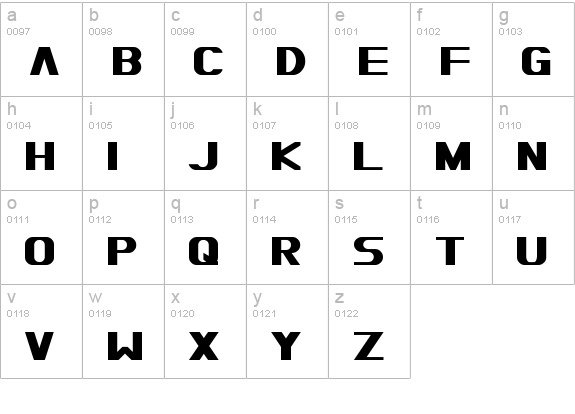
Moiser heavy Font Details
Moiser heavy is a heavy, high-impact variant in the Moiser typeface family \xE2\x80\x94 well suited to high-impact headlines, posters, and display advertising.
Moiser heavy font is a bold and powerful typeface that demands attention. With its thick strokes and sturdy appearance, this font exudes confidence and strength. Perfect for headlines, titles, and branding materials, Moiser heavy font adds a touch of boldness to any design. What makes Moiser heavy font even more appealing is that it is available for free! That's right, this incredible font can be freely downloaded at FontsMarket.com. Whether you're a professional designer looking for a reliable typeface or an amateur enthusiast experimenting with typography, Moiser heavy font is the ideal choice. The versatility of Moiser heavy font allows it to be used in a variety of design projects. From posters to logos, from website headers to packaging labels, this font effortlessly conveys a sense of power and professionalism. Its strong presence on the page grabs attention and leaves a lasting impression. Not only is Moiser heavy font visually striking, but it also boasts excellent legibility. Each letter is meticulously designed to ensure readability, even at smaller sizes. This makes Moiser heavy font a practical choice for body text in addition to its headline capabilities. Don't miss out on the opportunity to enhance your designs with the impactful Moiser heavy font. Download it for free today at FontsMarket.com and unlock a world of creative possibilities. Whether you're working on a personal project or a client's request, Moiser heavy font is sure to elevate your design to new heights.